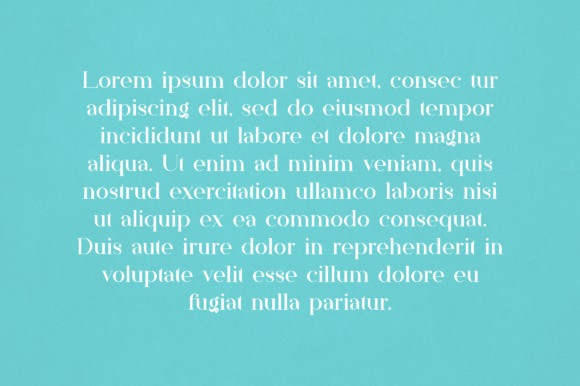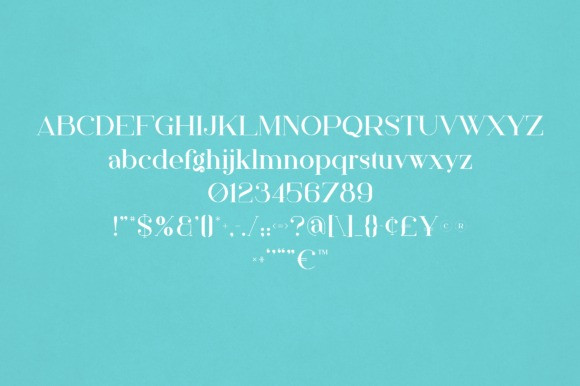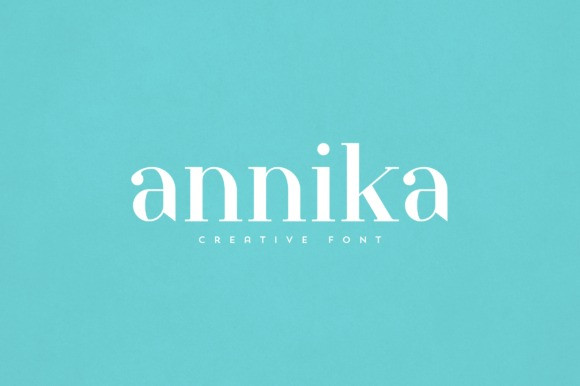
Annika Font
Annika Font is an elegant and versatile font that will make your typography truly unique! It will enchant every logo, branding, headline, or plain text!